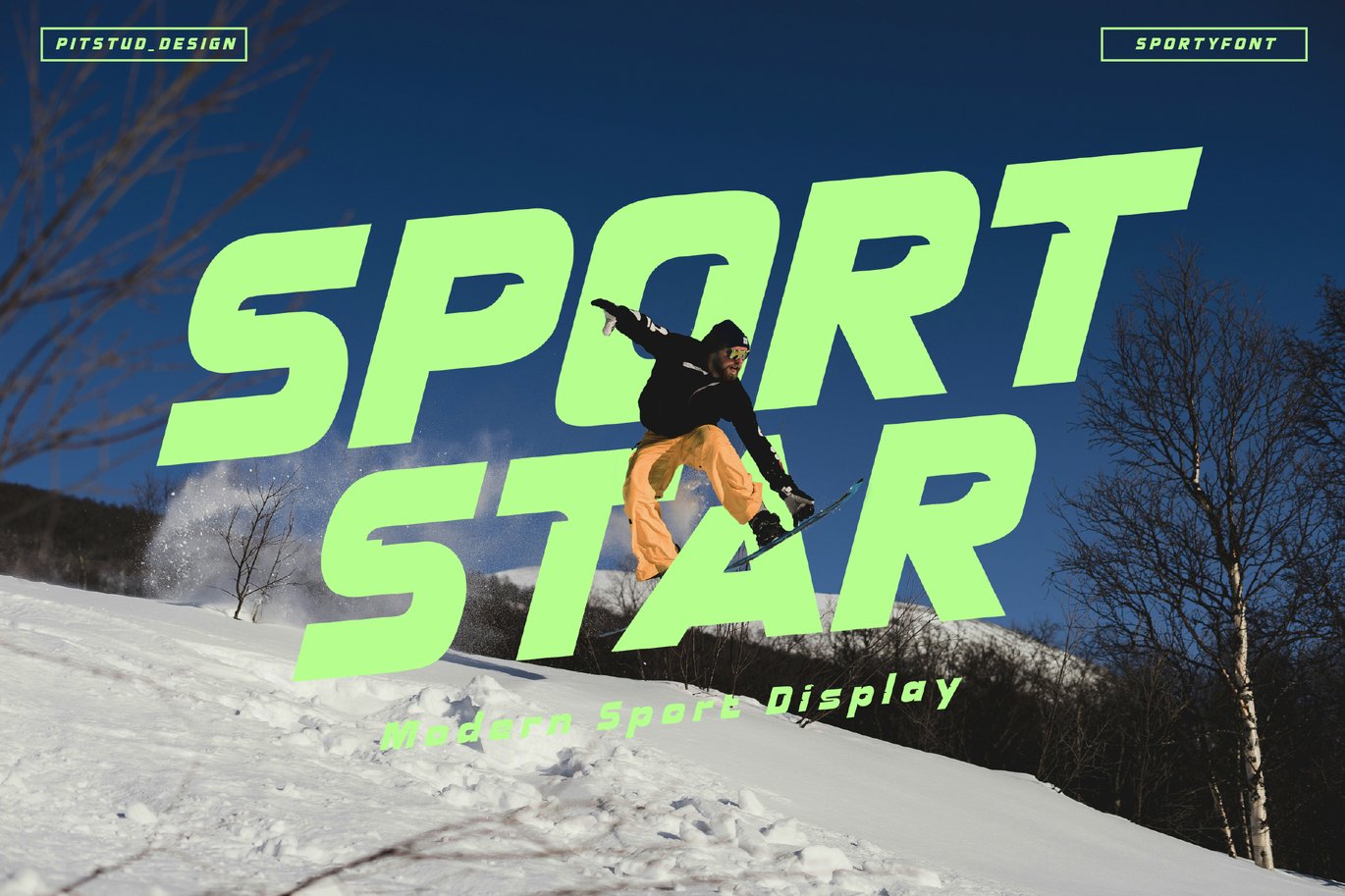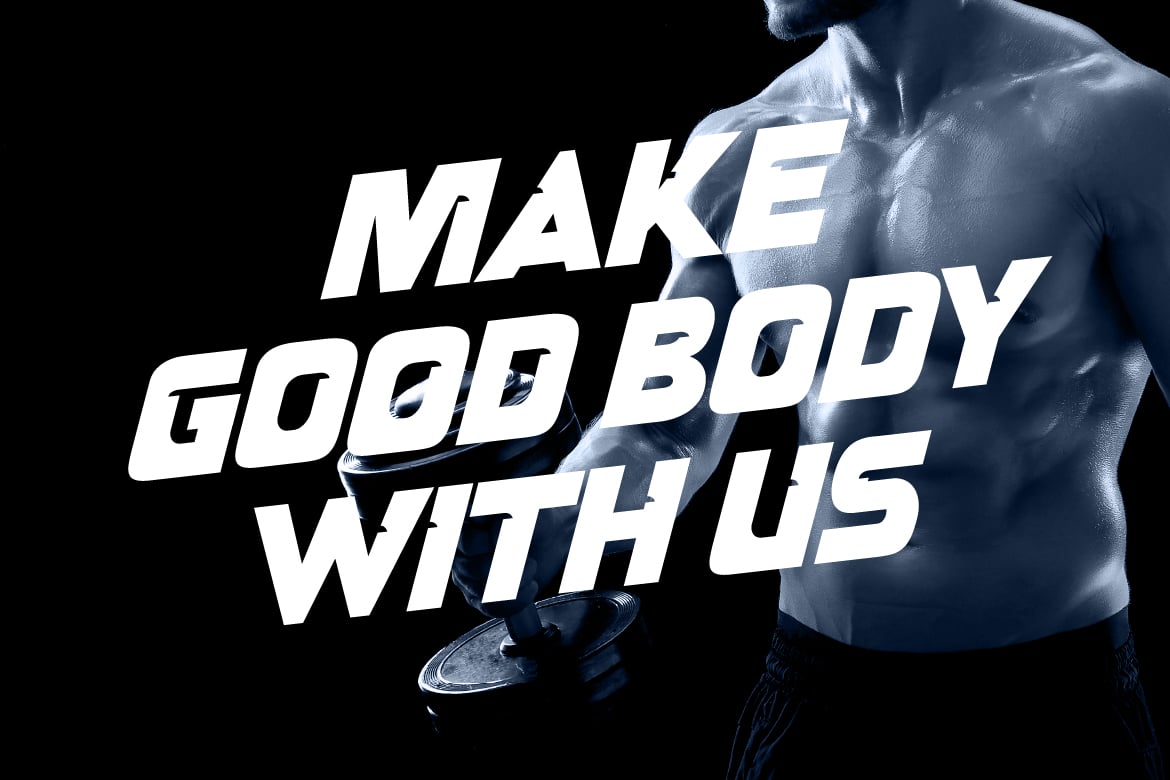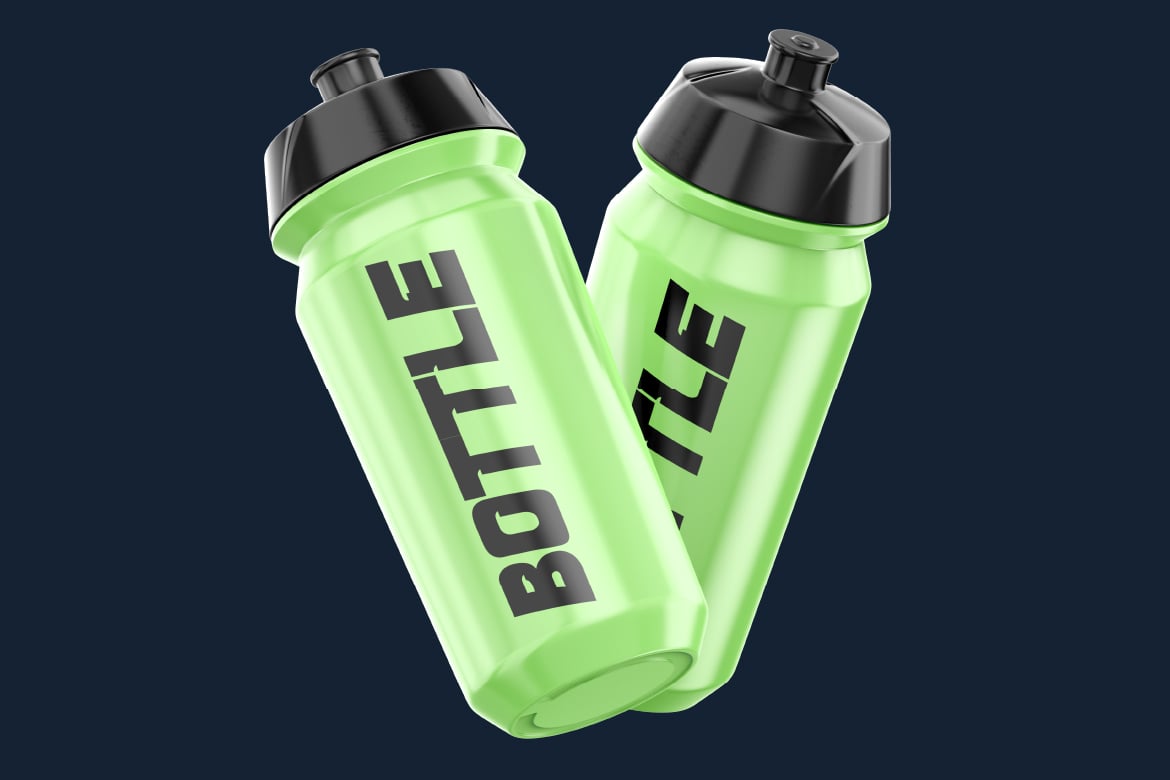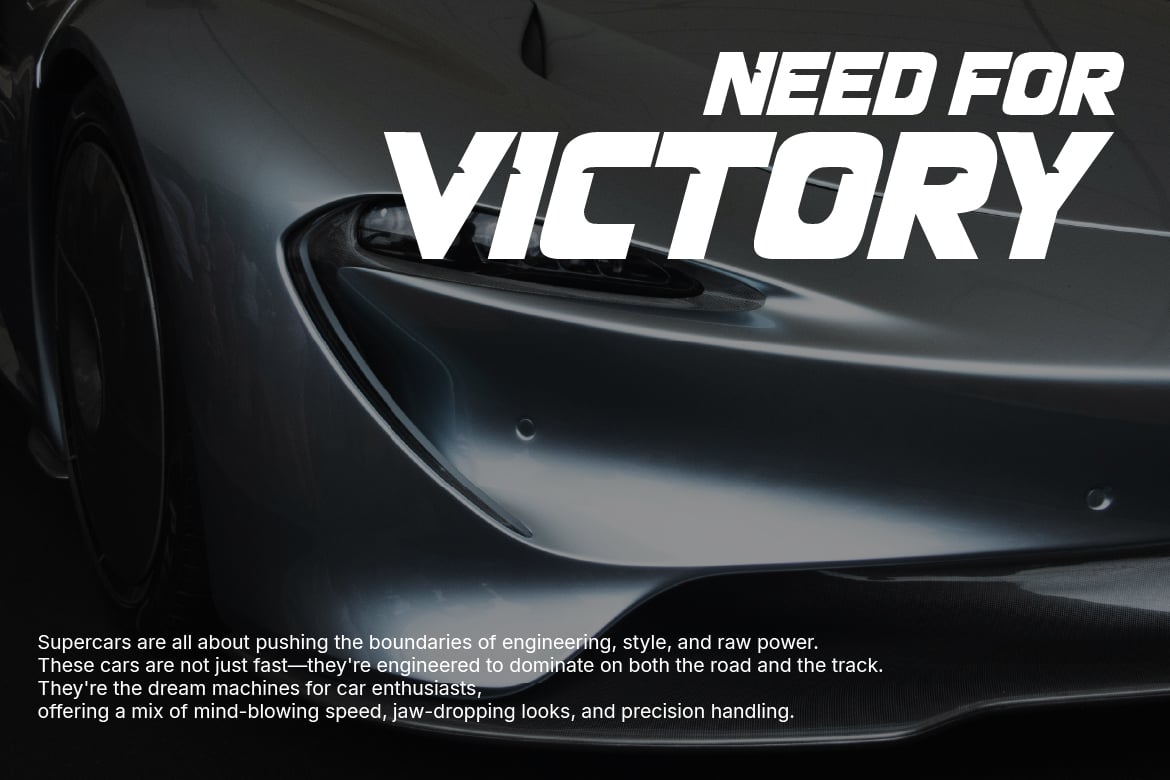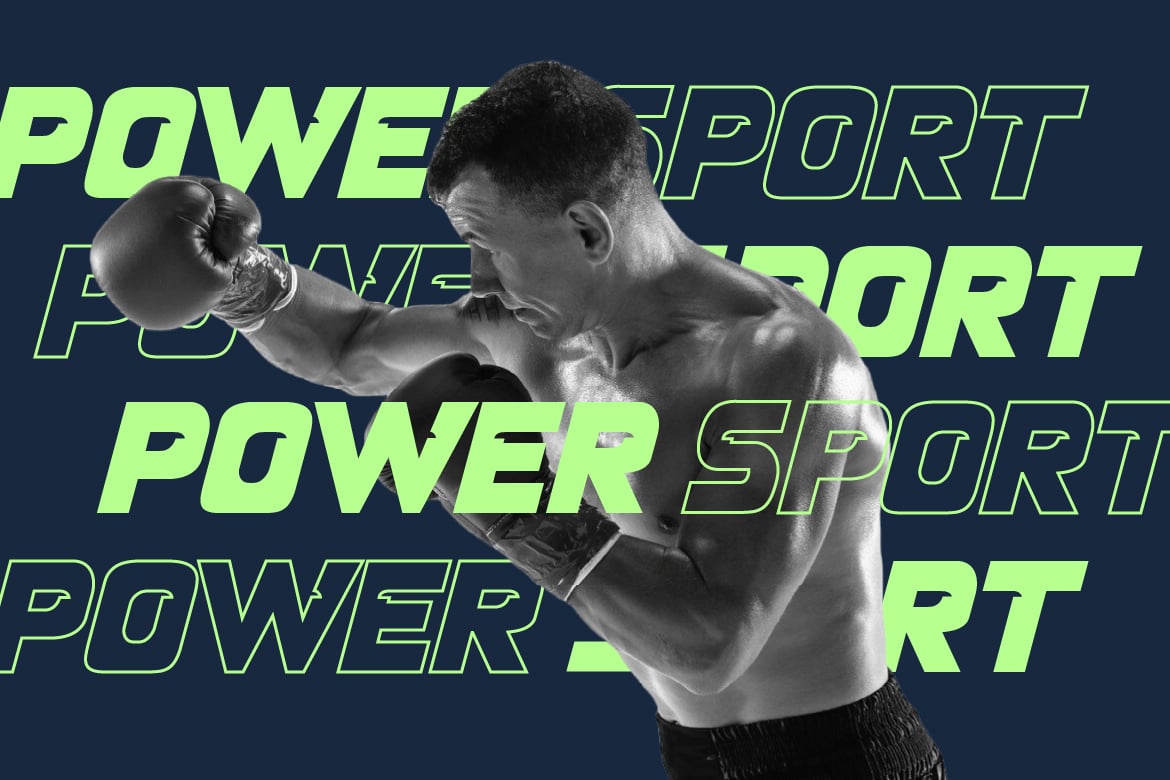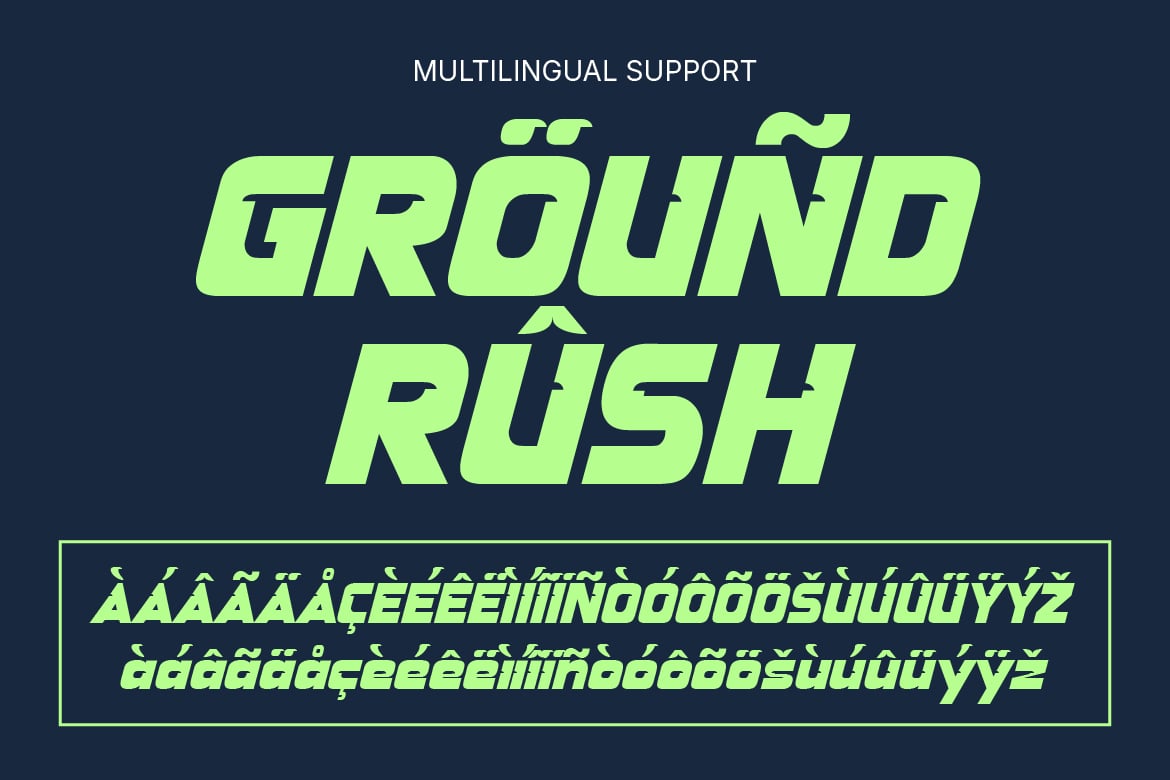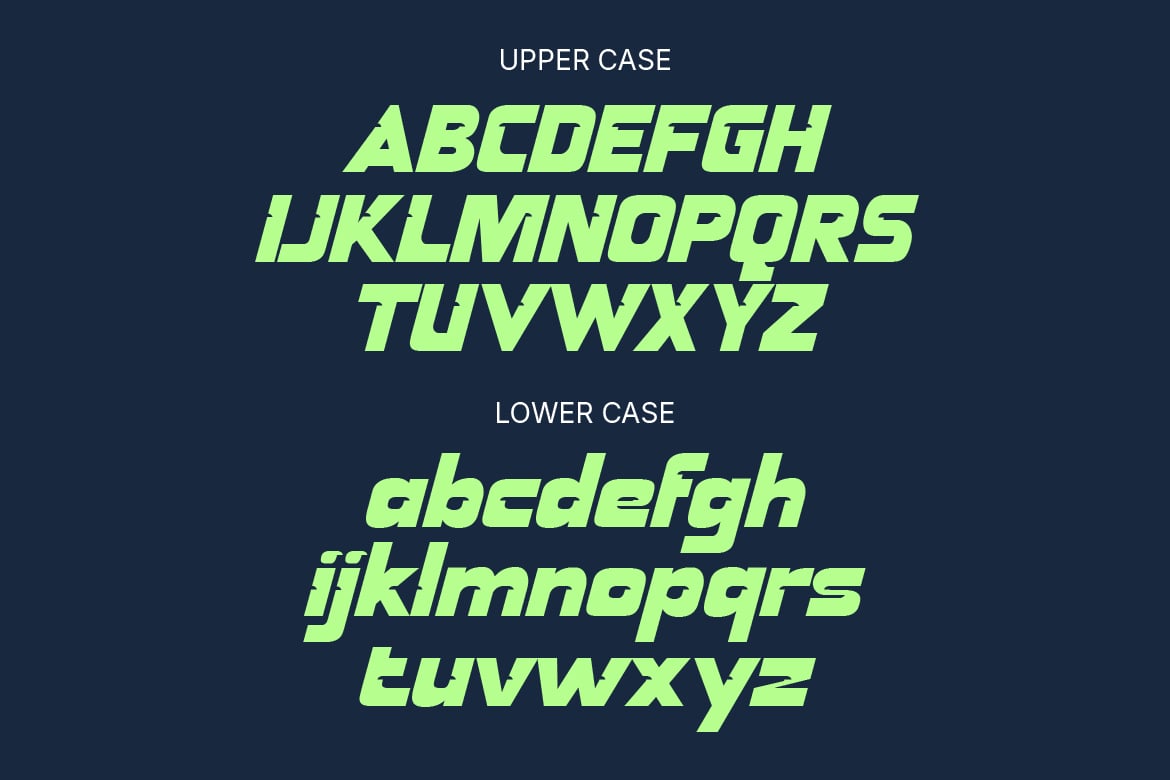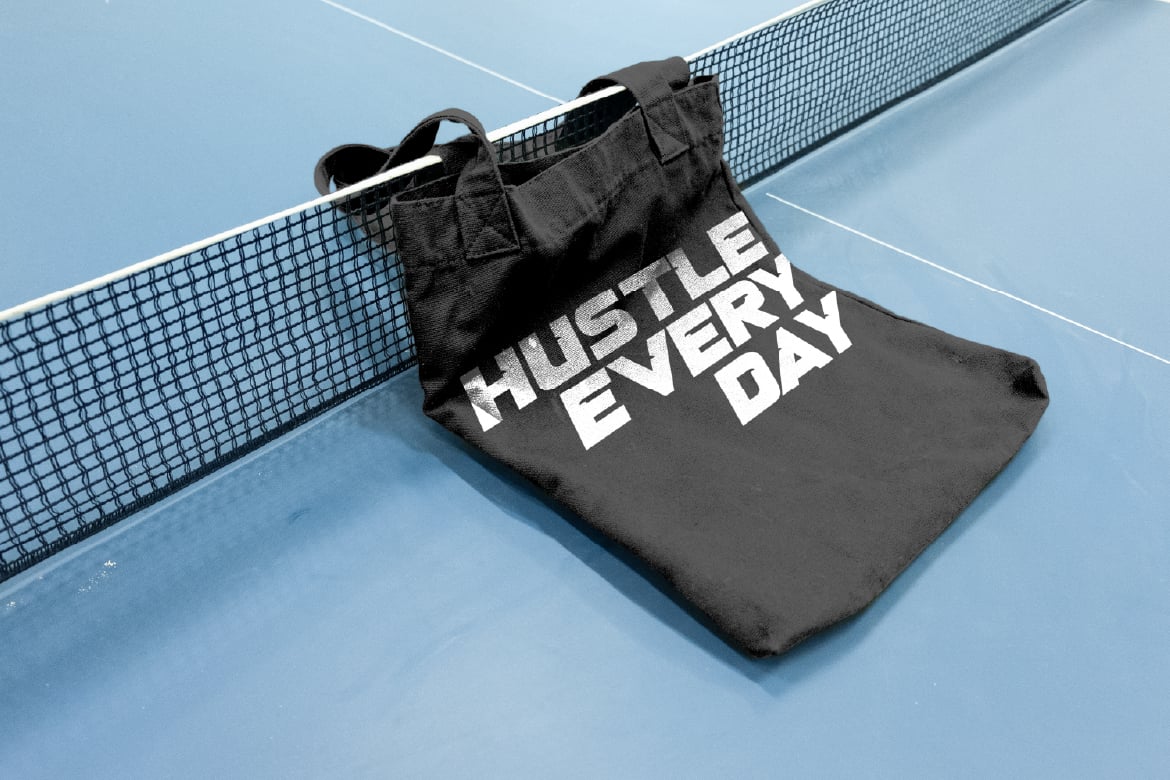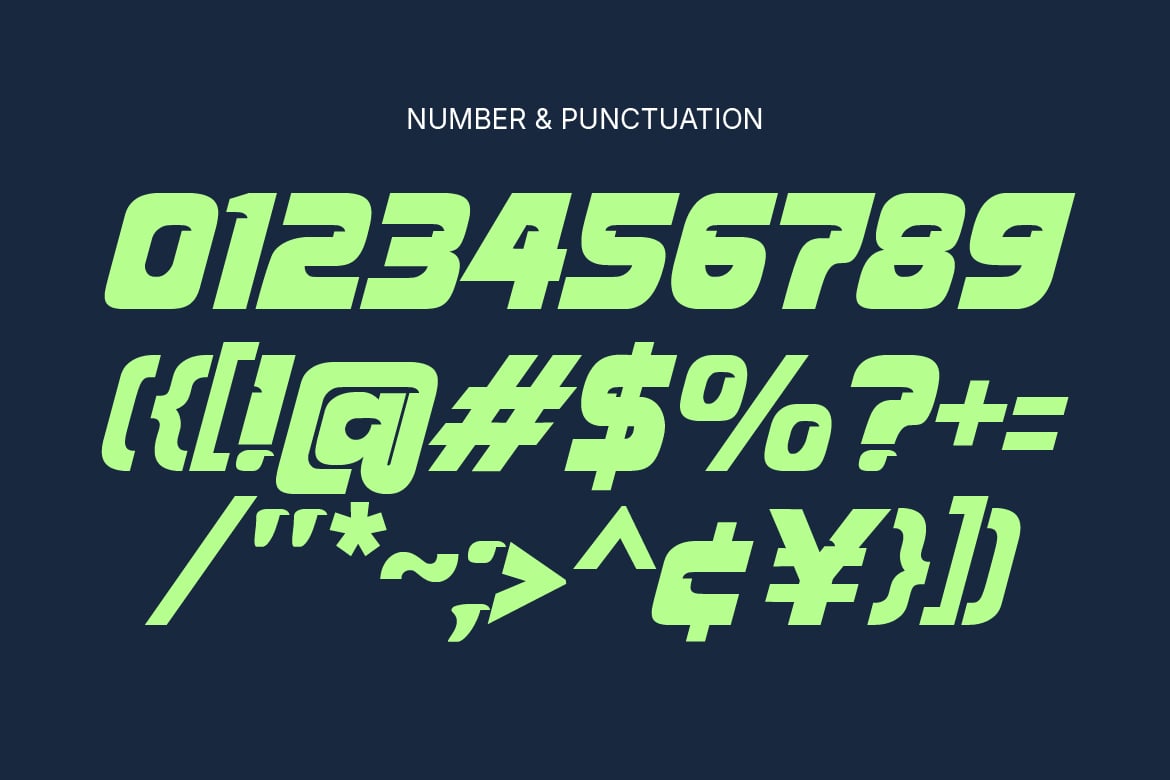
Sportstars – Sport Event Font
Bring the thrill of the game to your designs with Sportstars – Sport Event Font, a dynamic and bold sport font crafted for champions. This typeface combines sharp edges with sleek curves, inspired by the energy and motion of competitive sports. Perfect for creating striking team logos, jersey numbers, event posters, and fitness branding.